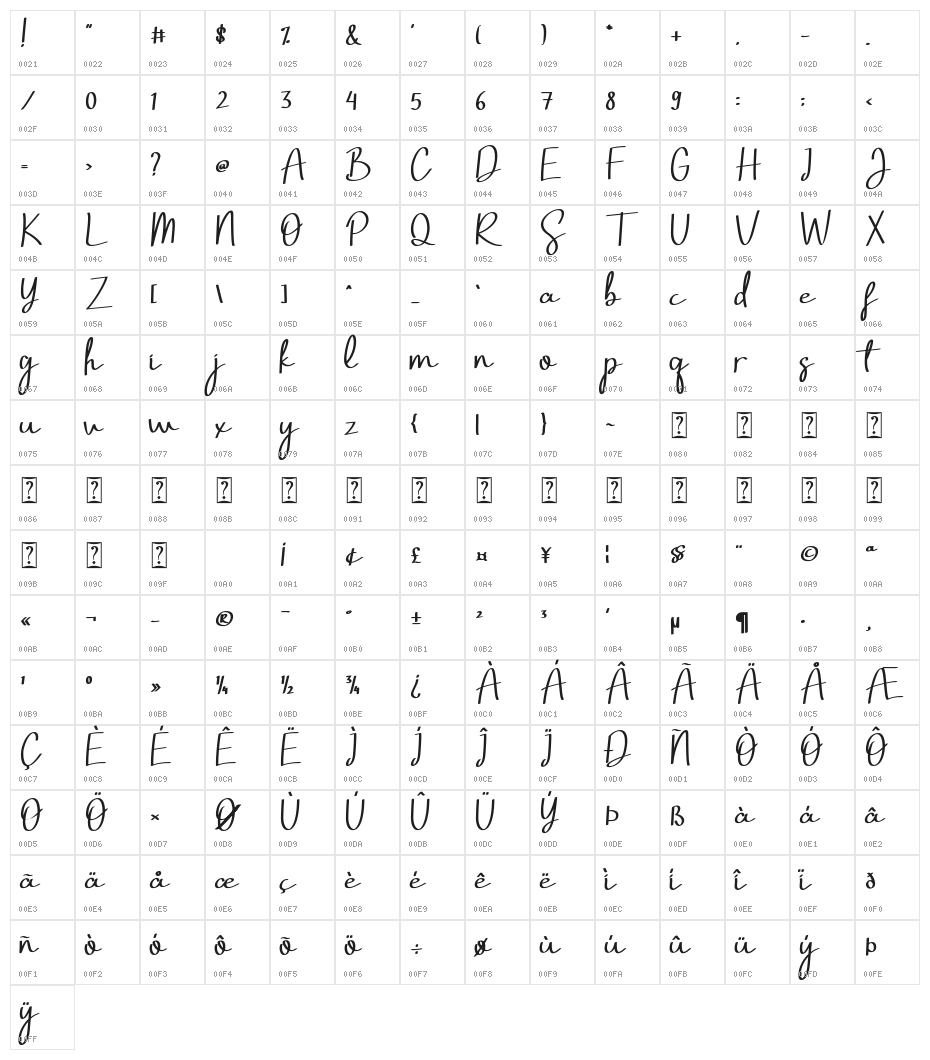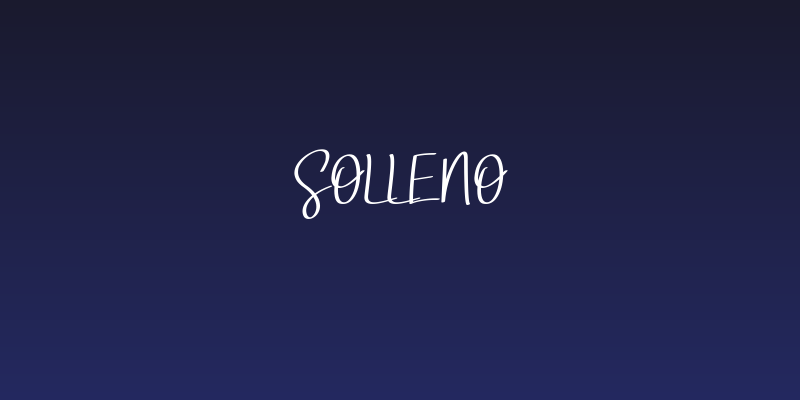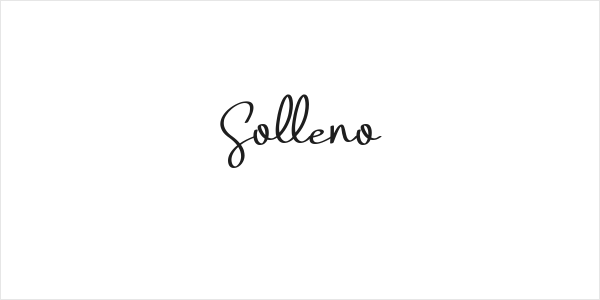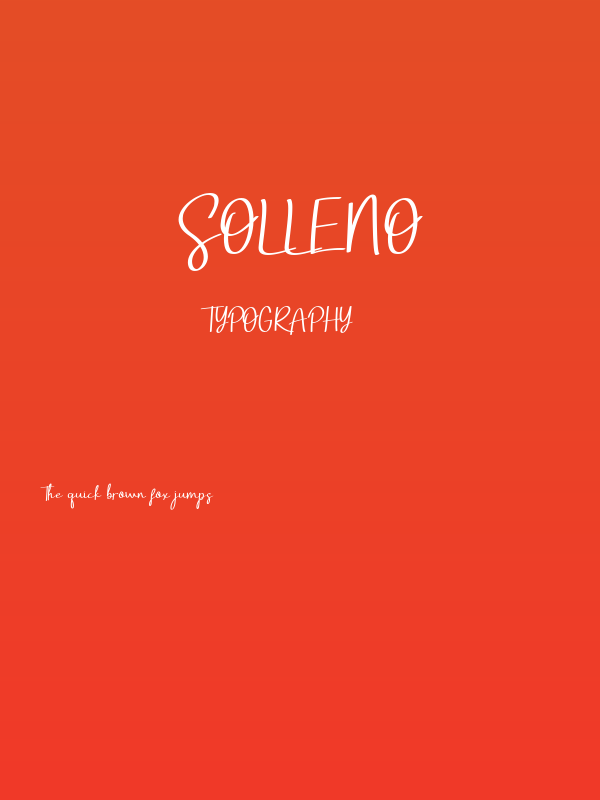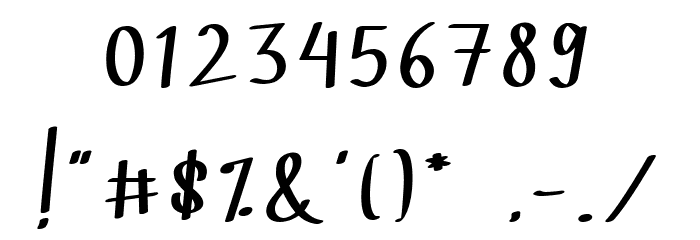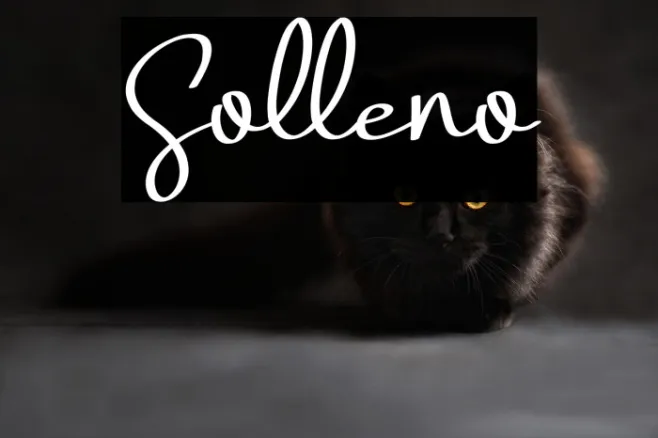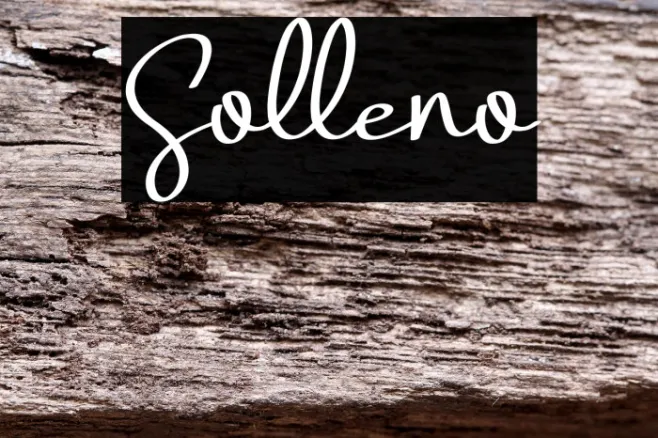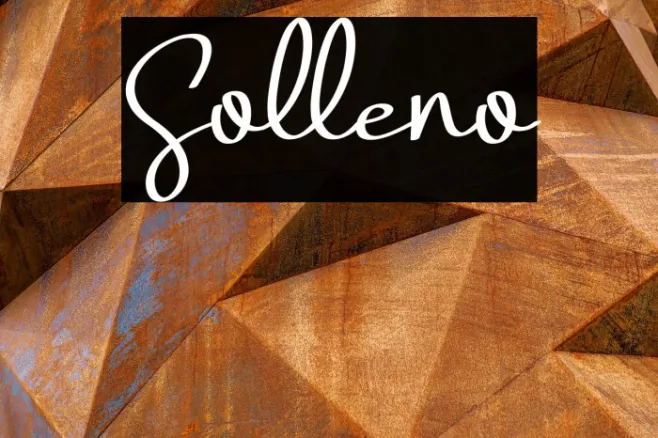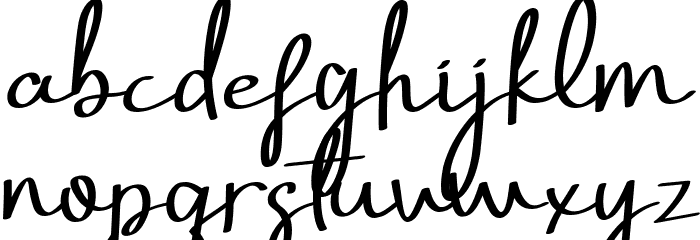
Solleno Font
Solleno Description
This font features a lively and dynamic script style with a handwritten appearance. The uppercase letters are tall and slightly narrow, with a playful, flowing quality that adds a sense of movement. The lowercase letters are more connected, with smooth, elegant curves that enhance the handwritten feel. The numbers are consistent with the overall style, maintaining the same fluidity and character. Special characters are well-integrated, matching the font's expressive nature. This font is perfect for projects that require a personal touch or a creative flair.
| Proposed Projects | Ideal for invitations, greeting cards, personal branding, and creative projects. |